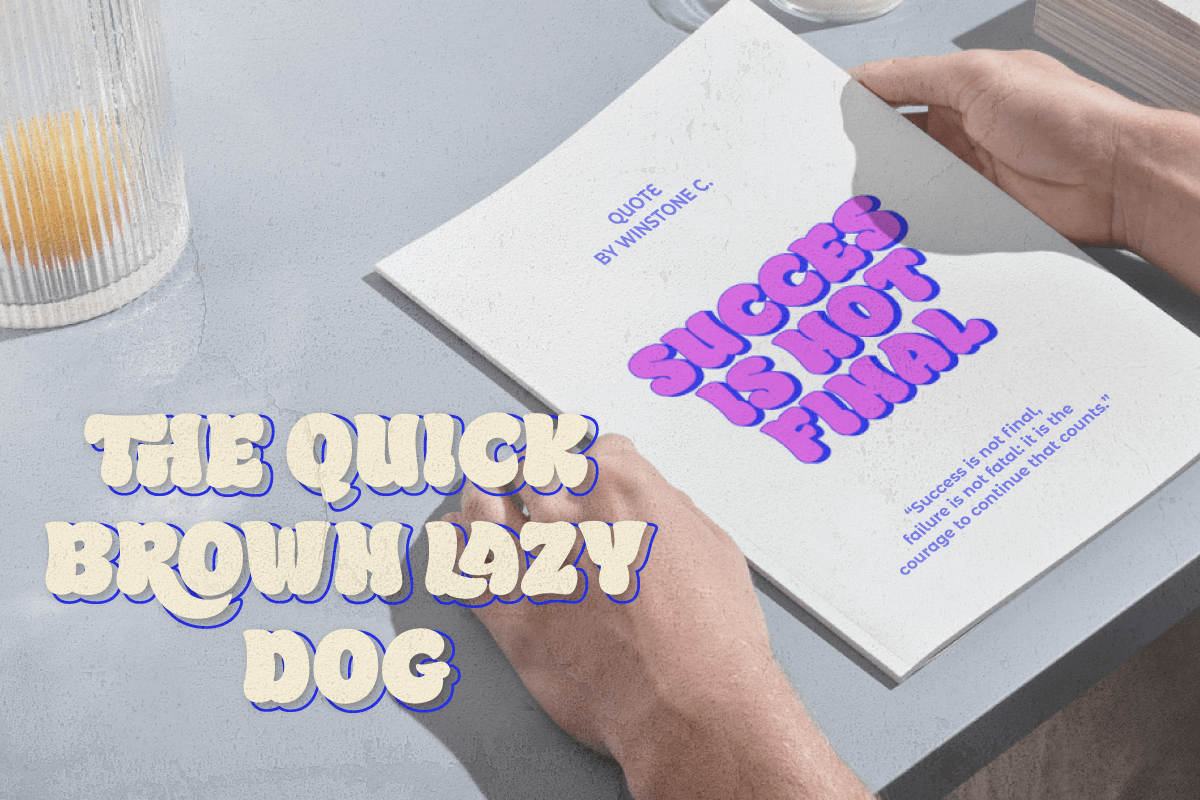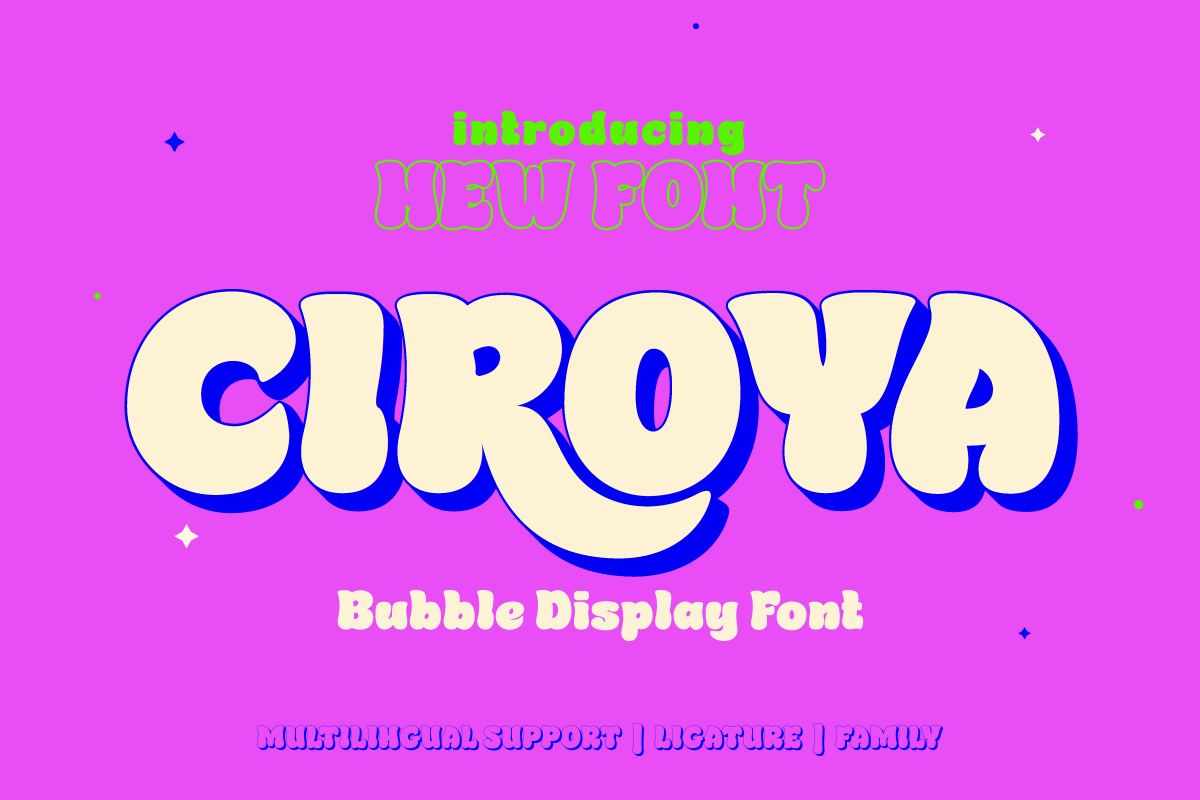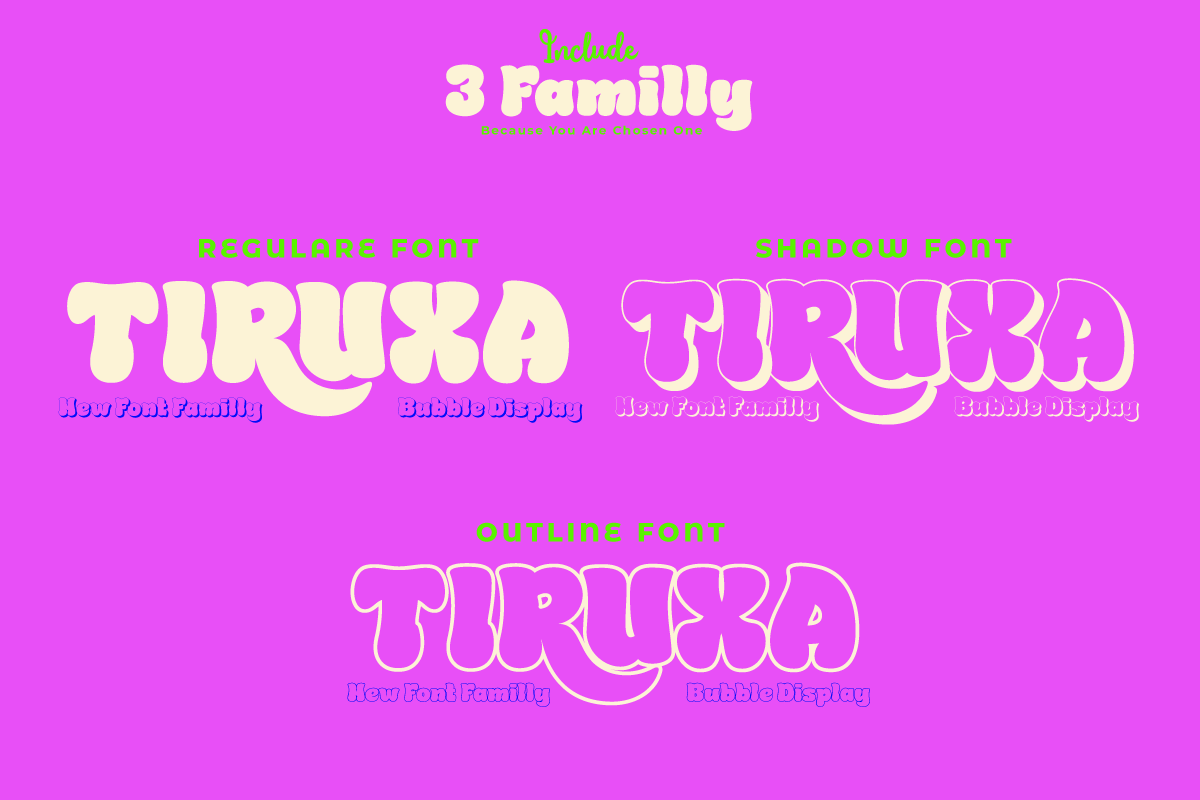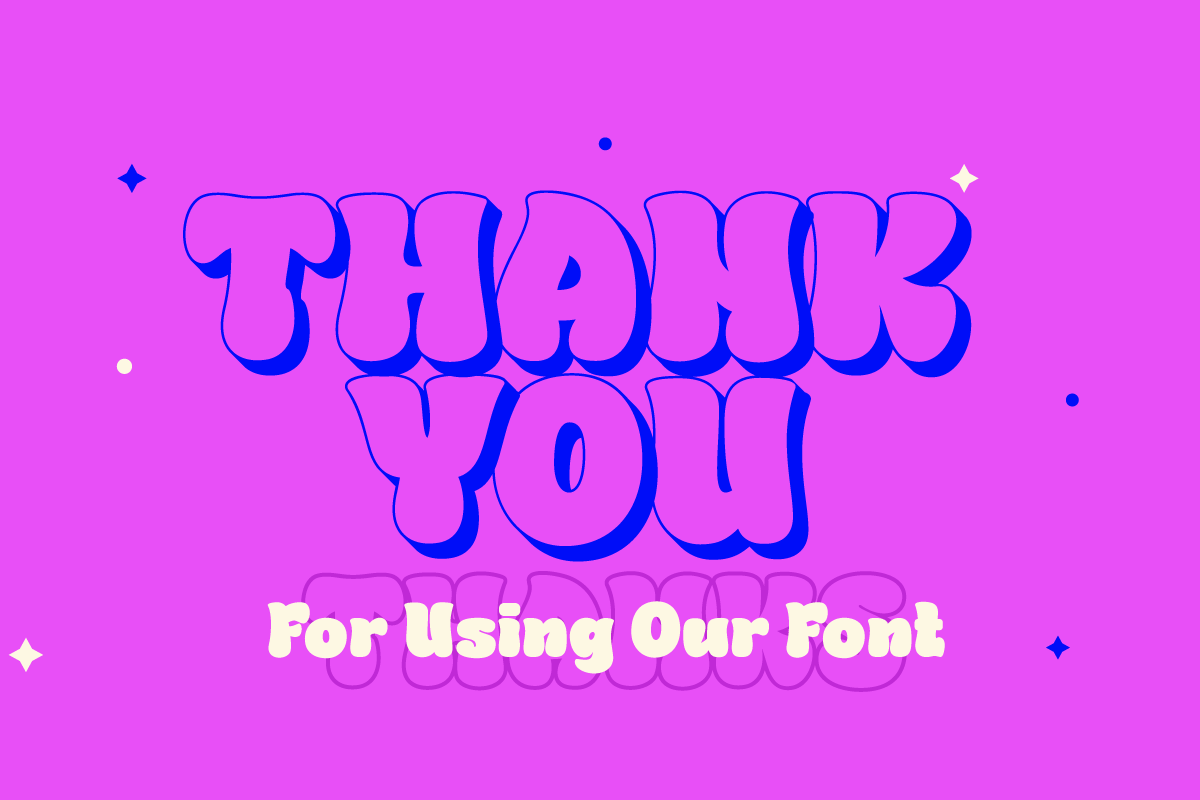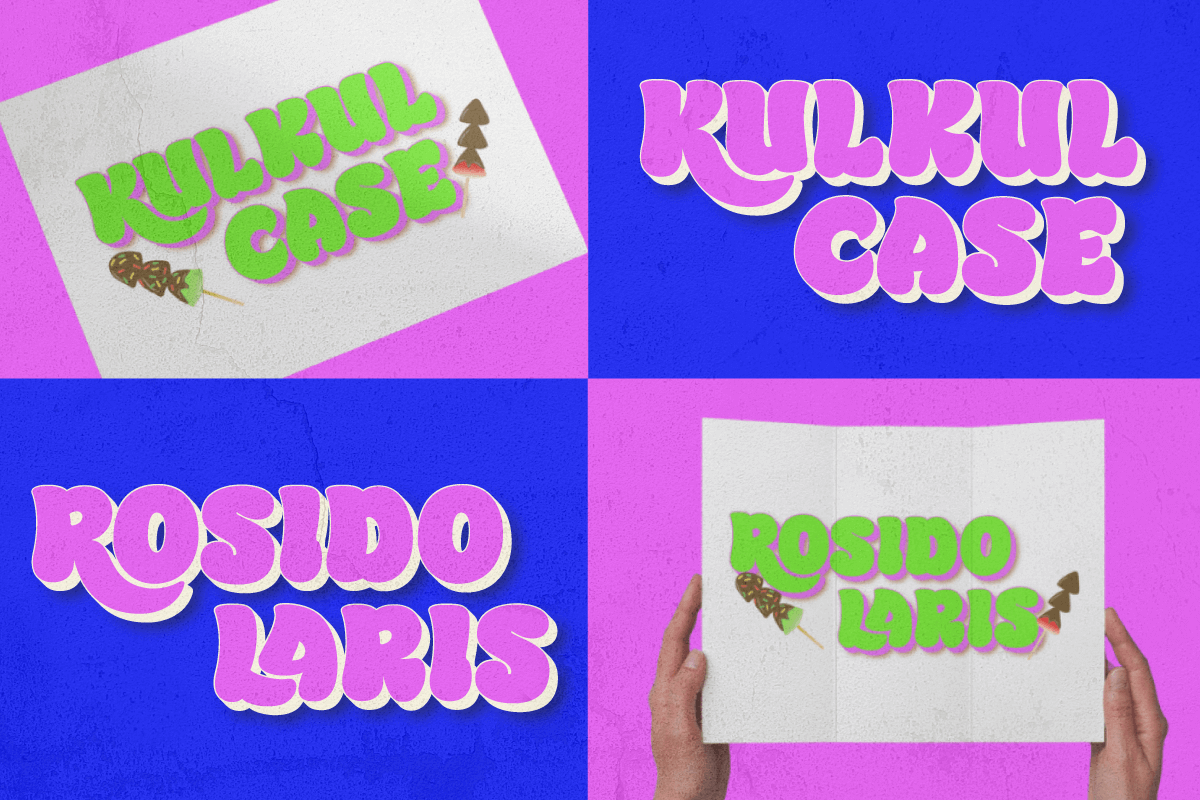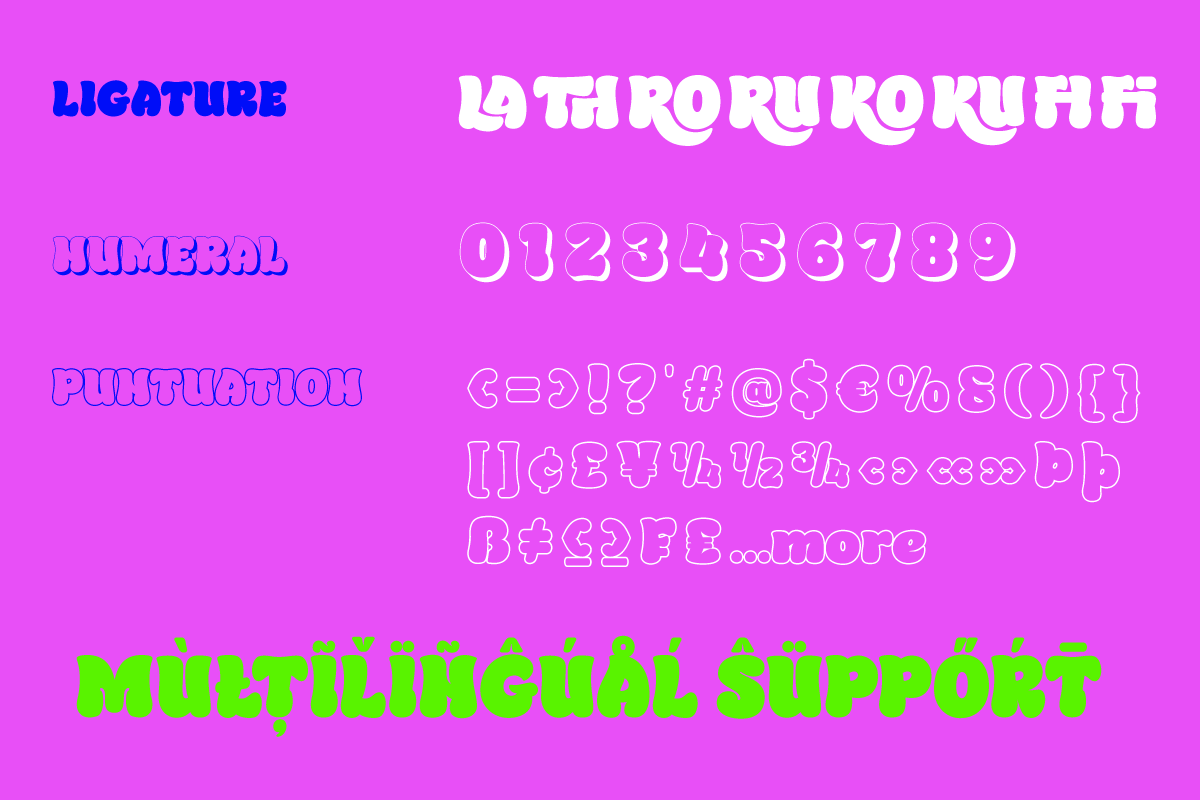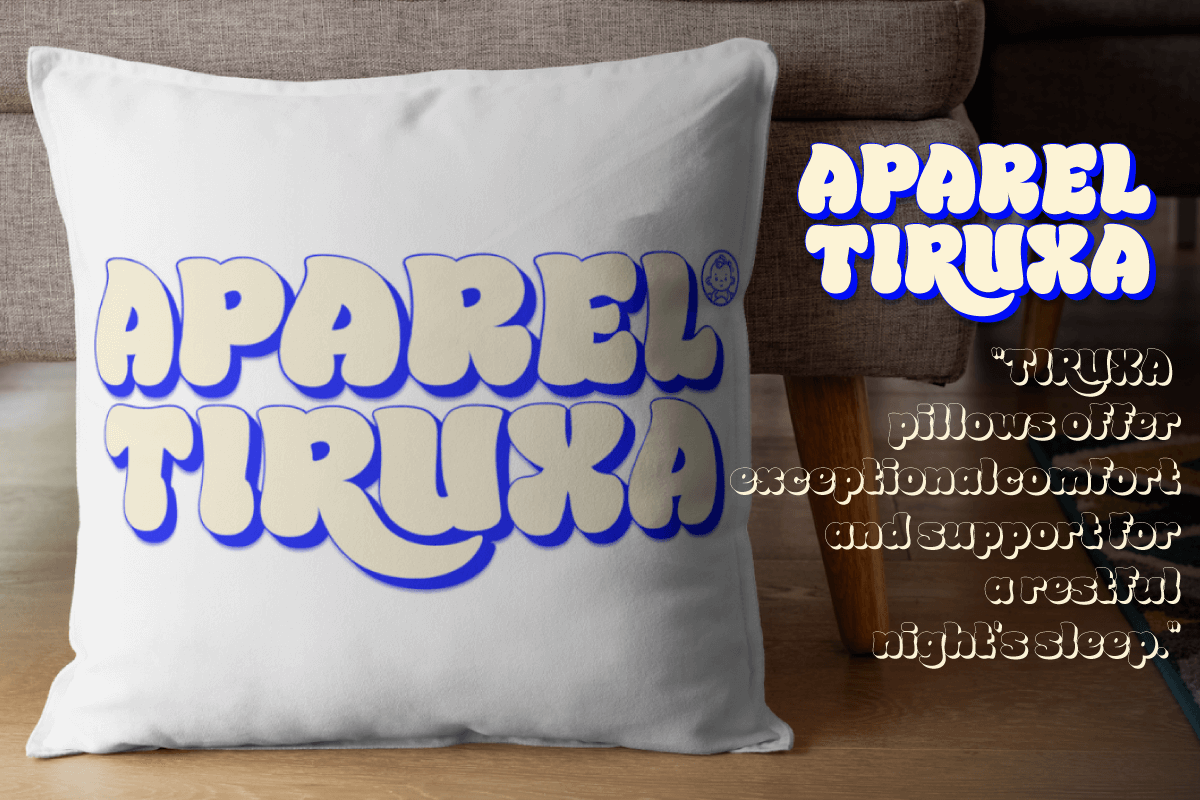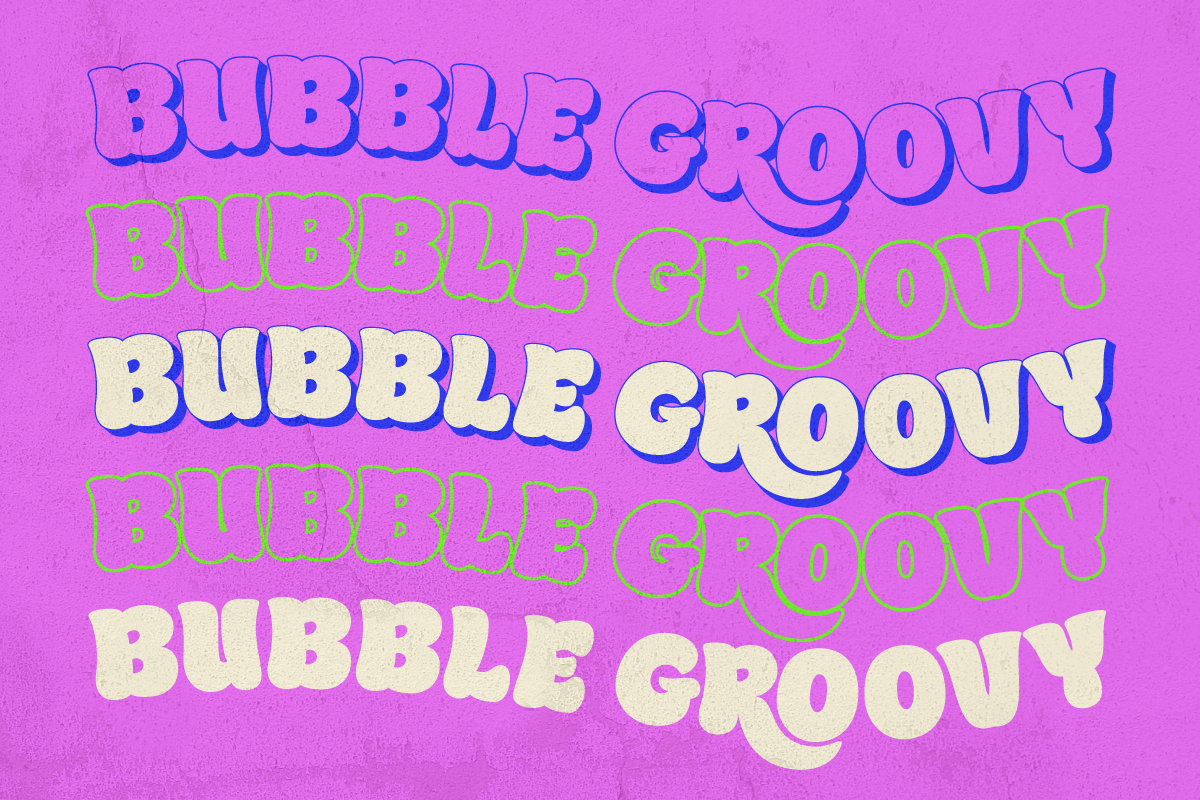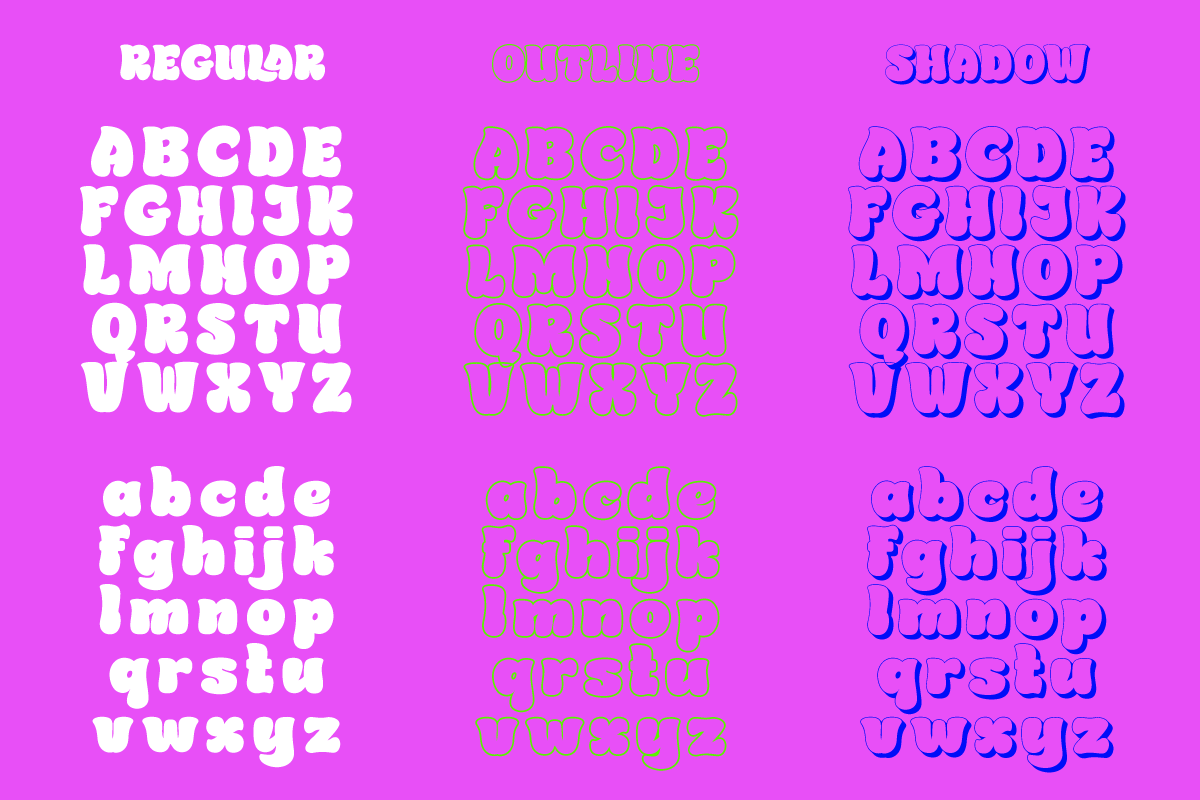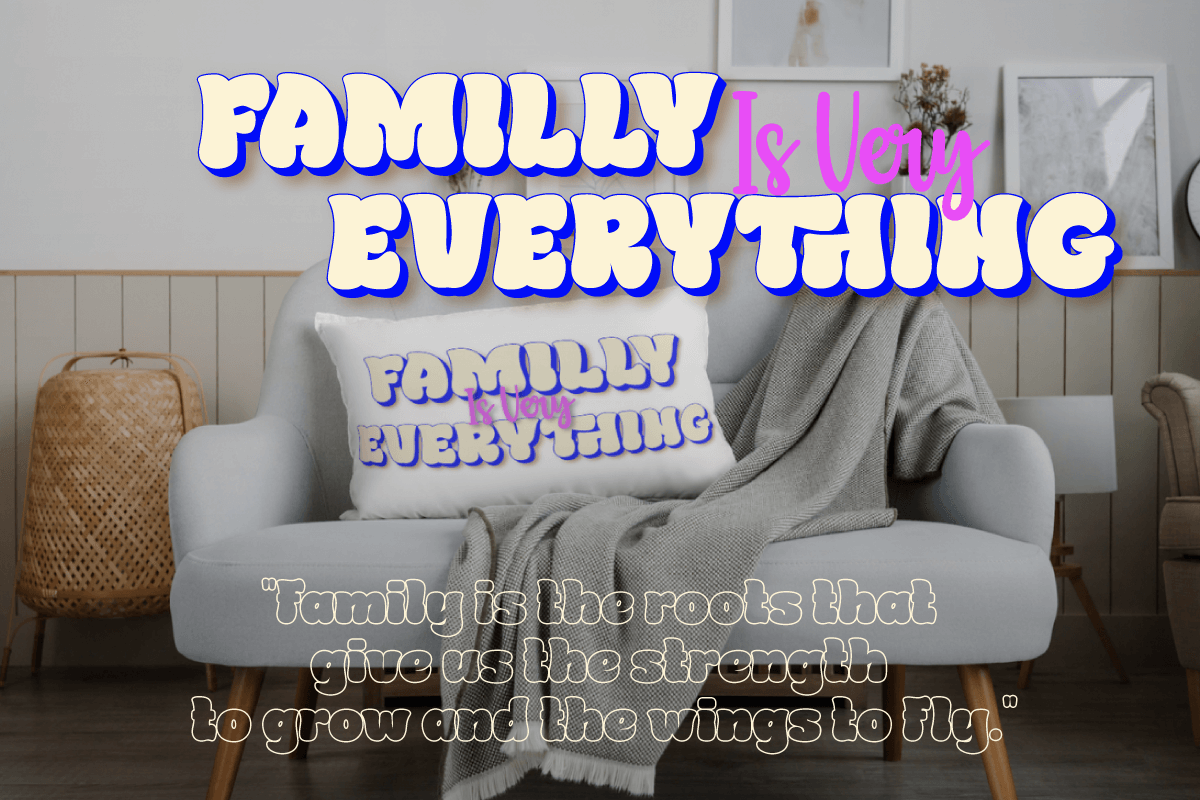
Ciroya - Bubble Font
Welcome to Ciroya, a typeface universe full of passion and fun! Ciroya is the answer if you want a strong, bold, and vivid style for your projects.
Ciroya is available in three different styles: regular, outline, and shadow. You can use this to create effects that suit your vision, such as colorful to lighter outlines or shadow effects.
But wait, there's more! Ciroya also has a plethora of other ligatures and characters, allowing you to express your creativity and create genuinely unique and spectacular designs. Ciroya, of course, supports several languages, allowing you to engage with audiences worldwide.
Make Ciroya your top choice for projects that require a playful, playful look. Let your message be combined with Ciroya's carefree touch and make an unforgettable impression.
With Ciroya, every word becomes more vibrant and colorful. Explore your creative potential right away with this fun font!